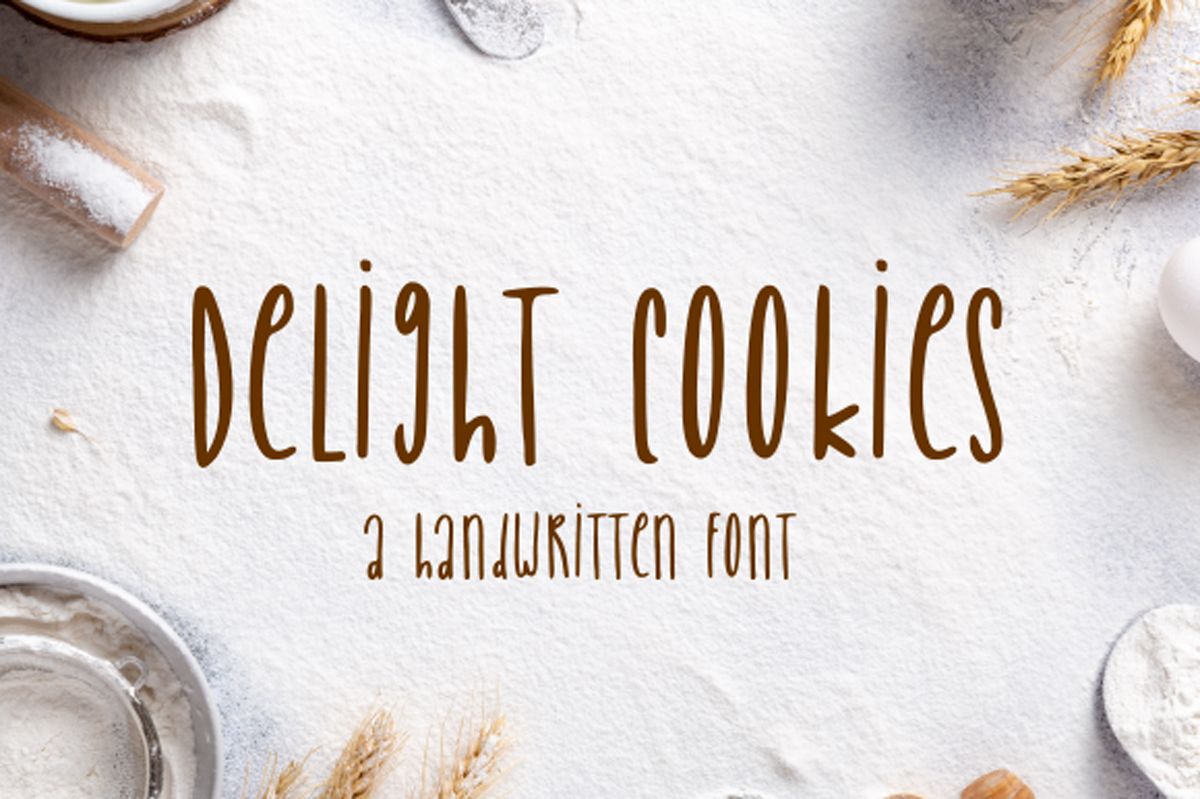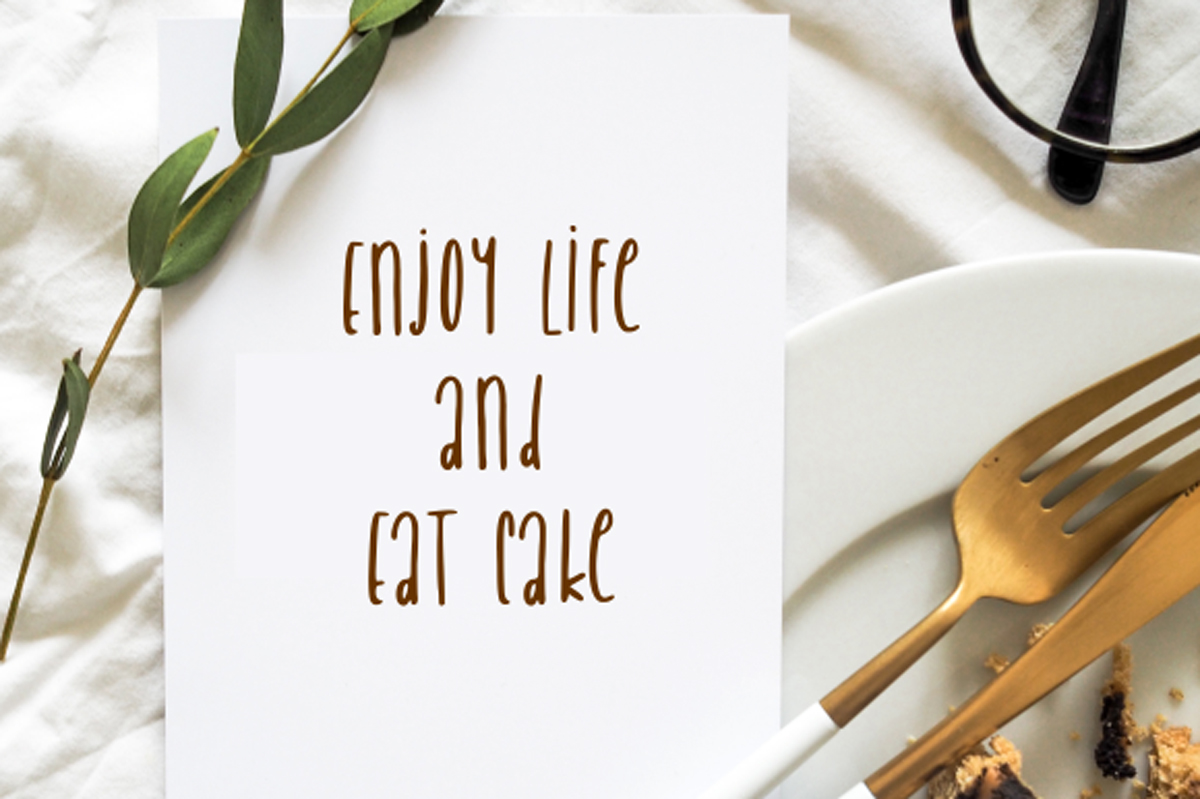
Delight Cookies Font
Free Download Delight Cookies Font with high speed direct link. Delight Cookies is a sweet, delicate and unique handwritten font. Fall in love with its incredibly versatile style and use it to create spectacular designs!